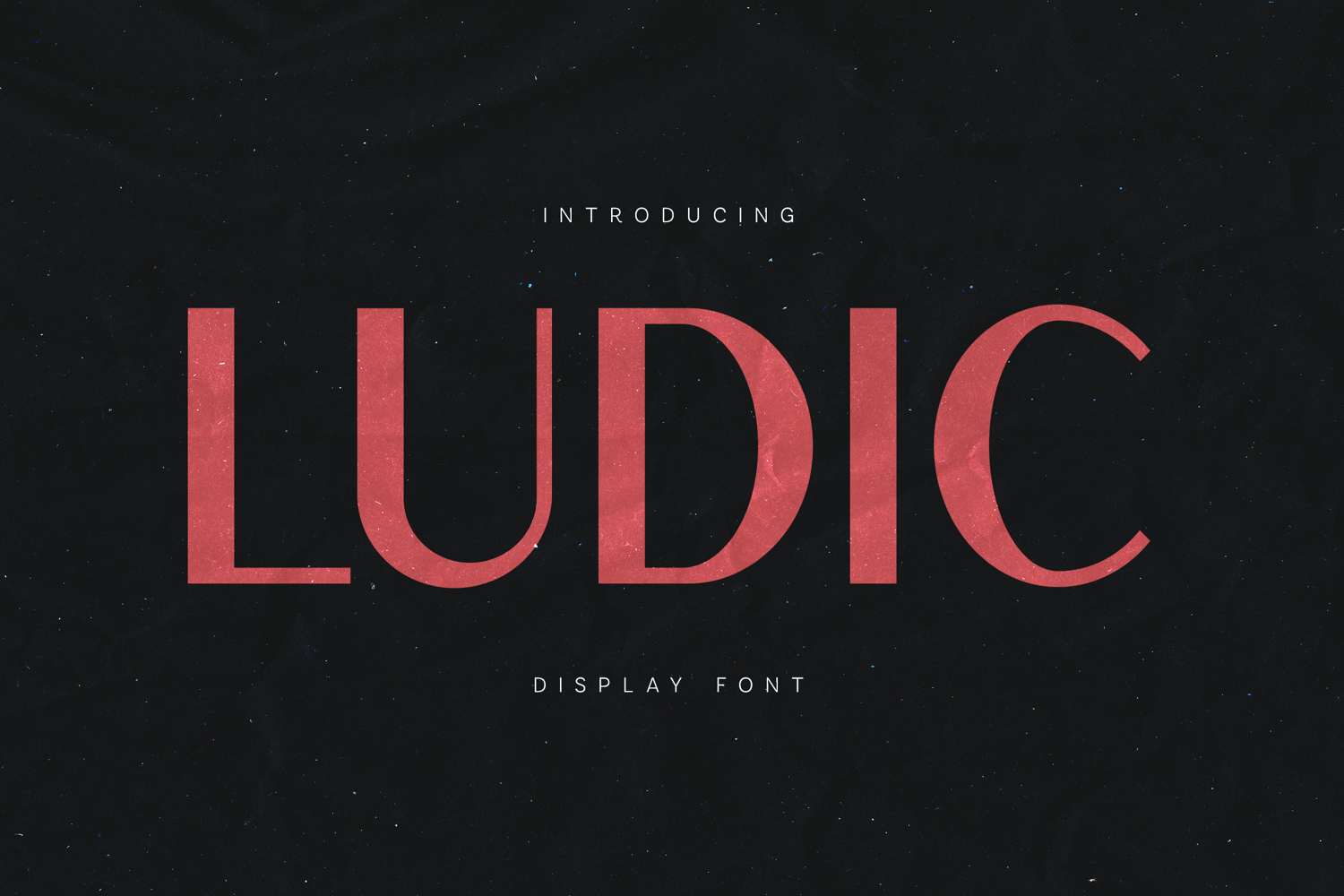
Ludic Modern Display Sans Serif Font
Ludic is a clean and contemporary display sans serif typeface designed for bold visual communication. The font features balanced proportions, smooth geometric shapes, and strong readability that make it ideal for modern design projects.
With its structured letterforms and confident presence, Ludic delivers a professional and versatile typographic style. The design maintains clarity and consistency across uppercase, lowercase, numbers, punctuation, and multilingual characters, allowing designers to create cohesive typography for a wide range of applications.
The modern construction of Ludic makes it especially effective for branding, editorial layouts, posters, packaging, web design, social media graphics, advertising, and logo design. Its refined shapes allow headlines and large typography to stand out while remaining clean and sophisticated.
Ludic supports extended Latin characters, enabling designers to work across many languages and international design projects without compromising visual consistency.
Whether used for bold titles or clean modern layouts, Ludic brings clarity, strength, and contemporary style to typography.